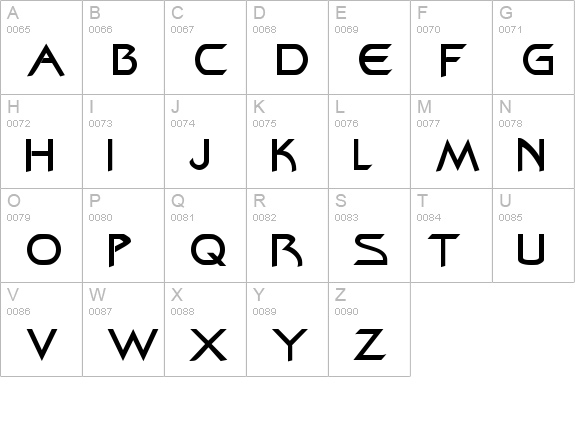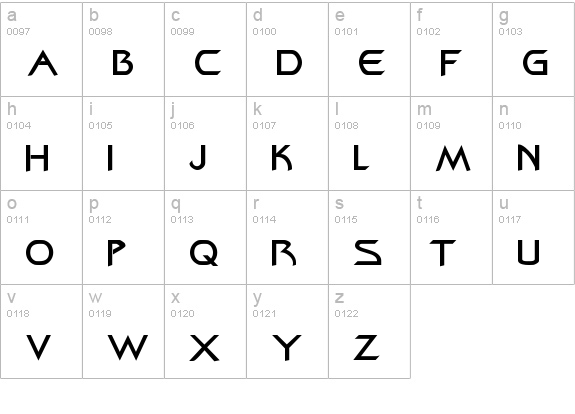
Zenon font is a modern and elegant typeface that exudes sophistication and versatility. With its clean lines and sleek design, Zenon is perfect for a wide range of design projects, from branding to editorial layouts. Its balanced proportions and stylish letterforms make it a popular choice among designers looking for a contemporary yet timeless font. What sets Zenon apart is not only its striking aesthetics but also its accessibility - it is available for free download at FontsMarket.com. This means that you can easily incorporate this high-quality font into your projects without breaking the bank. Whether you are designing a website, creating marketing materials, or crafting a logo, Zenon font provides a polished and professional look that will elevate your work to the next level. Download Zenon font today and discover the beauty and versatility of this premium typeface - for free!